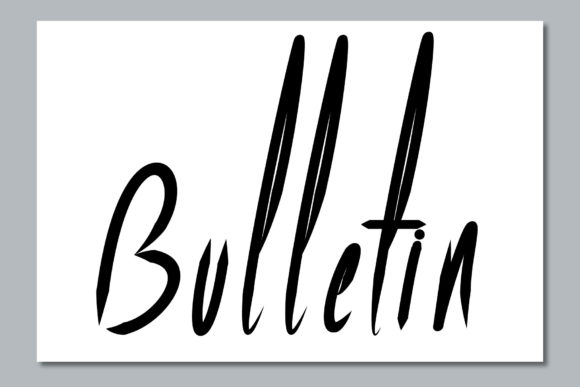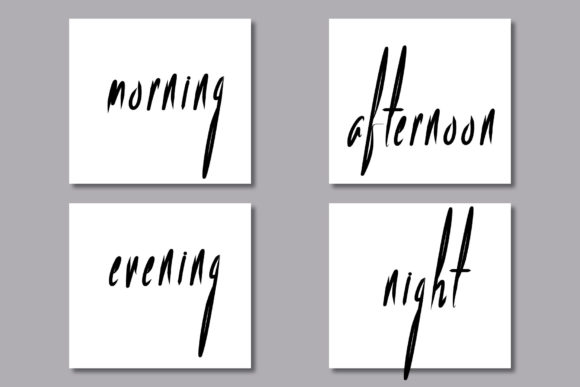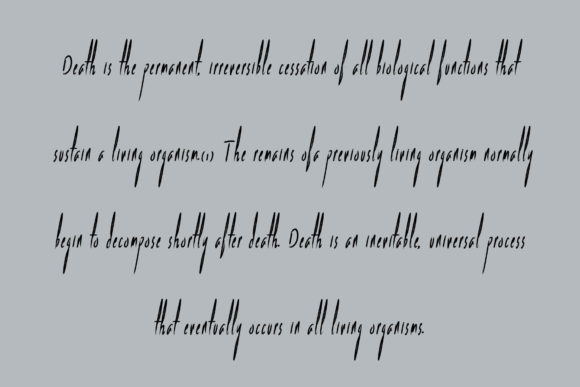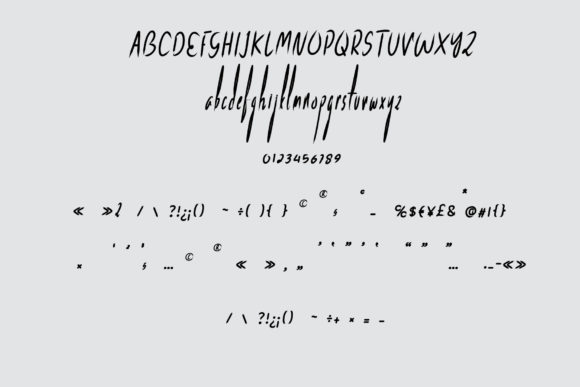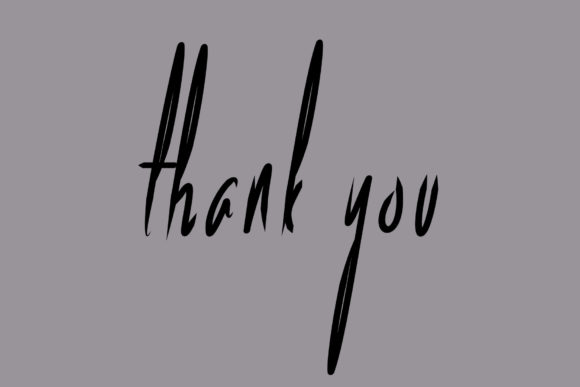
Bulletin Font
About Bulletin Font
Bulletin is a tall, thin and cursive script font. It can be used for various purposes such as logos, wedding invitations, headings, t-shirts, letterhead, signage, labels, news, posters, badges and so much more.